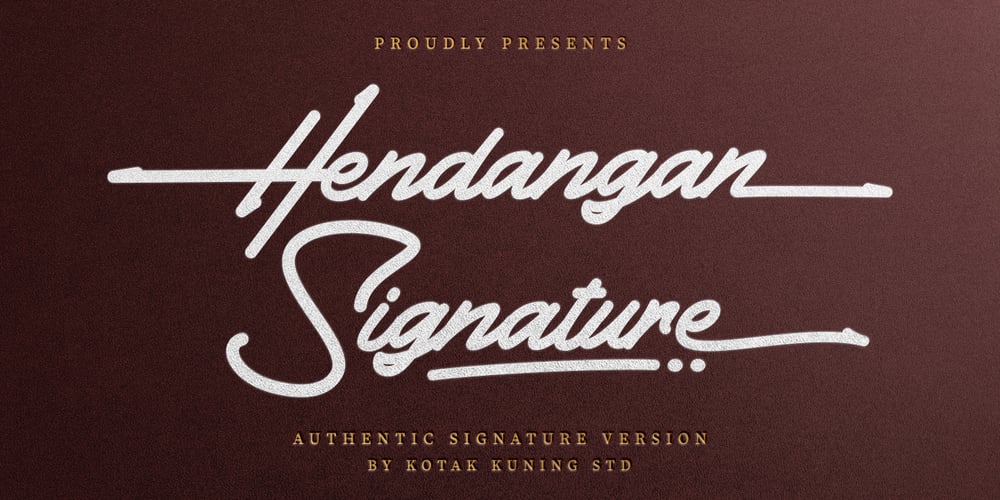
Hendangan Font Family was designed by Arif Dwi and published by Kotak Kuning Studio. Hendangan contains 1 styles and family package options. Hendangan is a handwritten signature script with a natural & stylish flow.Hendangan would be perfect for logos & branding, photography, watermark, social media posts, advertisements, invitation, product designs, label, stationery, wedding designs, product packaging, special events, or anything that needs handwriting taste.We highly recommend using a program that supports OpenType features and Glyphs panels such as Adobe Illustrator, Adobe Photoshop CC, Adobe InDesign, or CorelDraw, so you can see and access all Glyph variations.This is encoded with Unicode PUA, which allows full access to all additional characters without having special design software. Mac users can use Font Book, and Windows users can use Character Map to view and copy one of the extra characters to paste into your favorite text editor/application.Thank You.